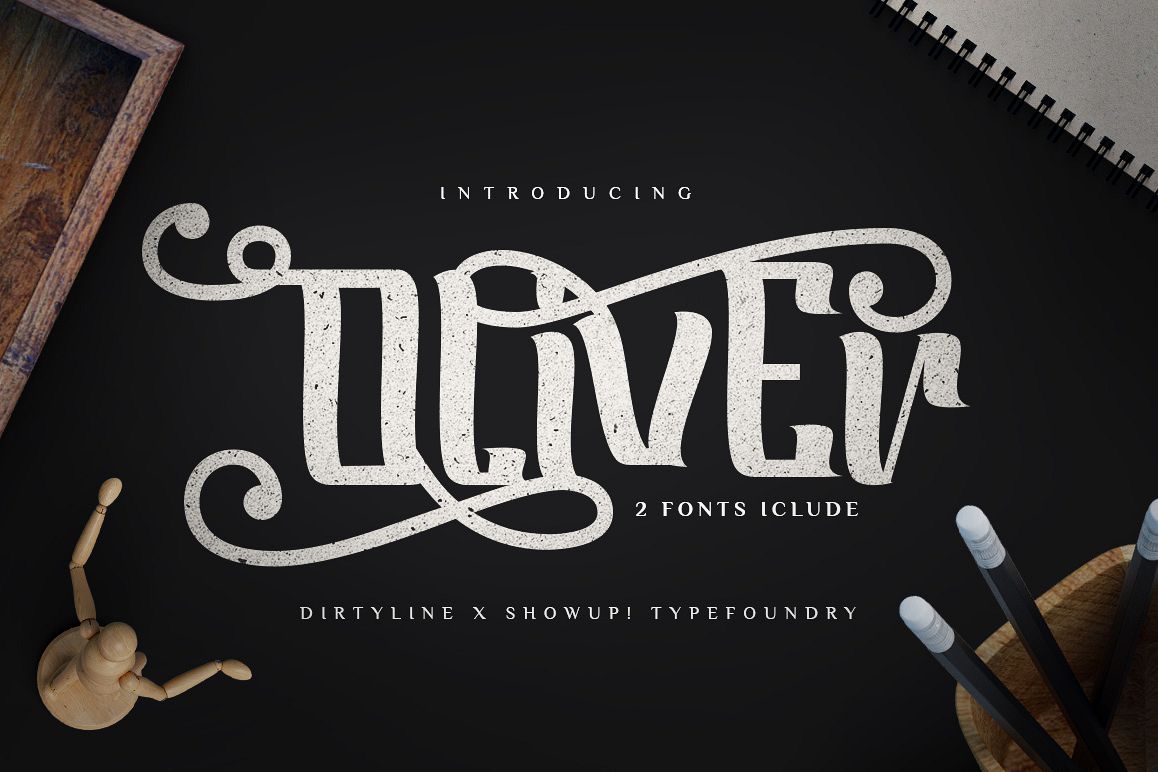
Oliver Typeface
Oliver is multi-purpose and ready to make a statement by adding an elegant and unique talent for the next design project. Oliver can be used for various purposes such as posters, logos, t-shirts, signage, businnes card, magazines, book covers, wedding invitations, greeting cards etc. including initial and terminal letters, alternates, ligatures and multiple language support.